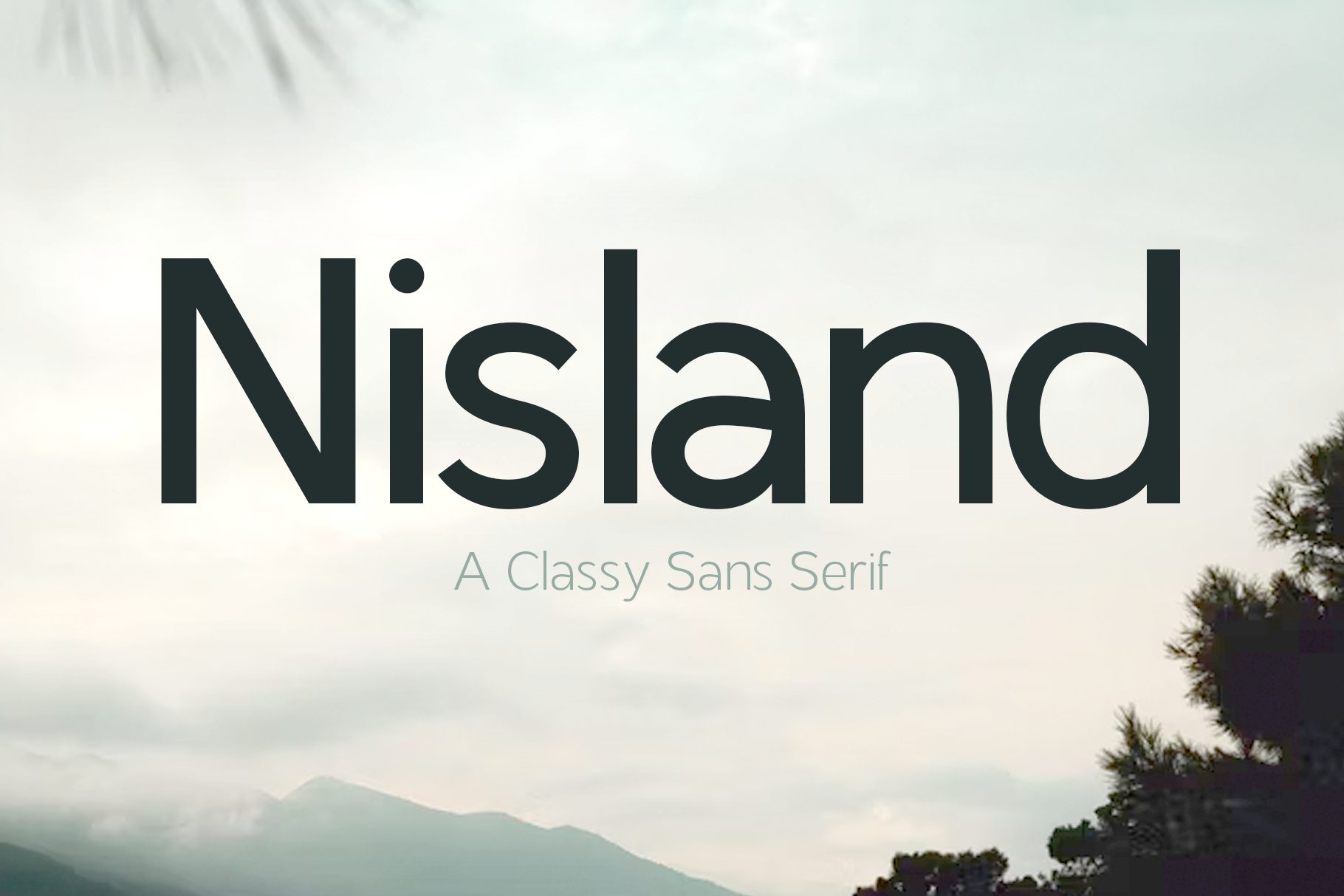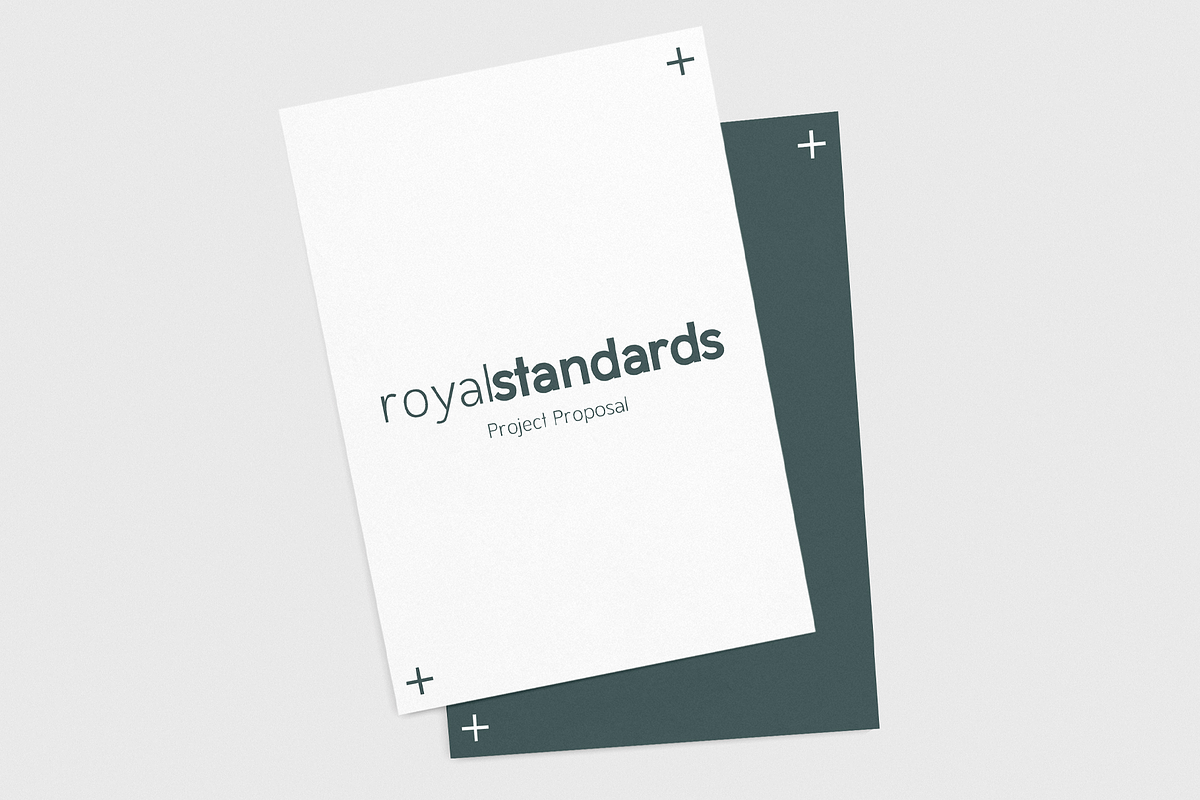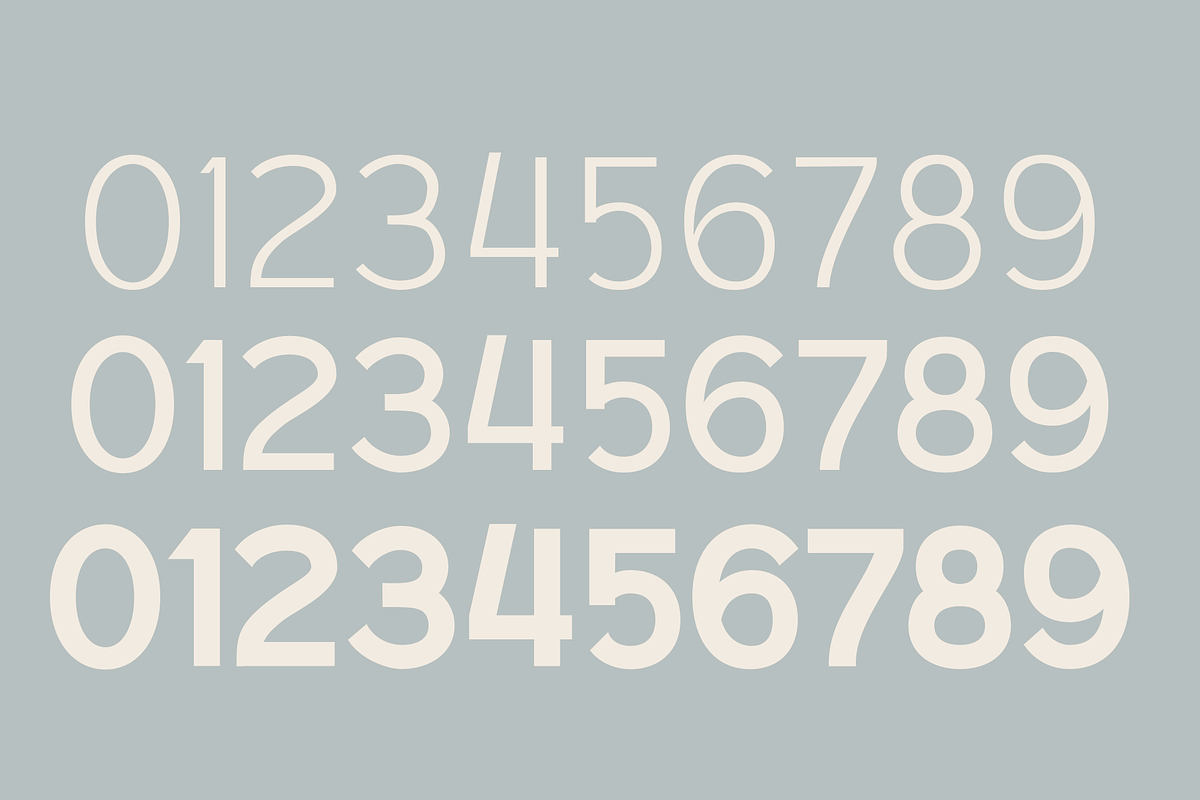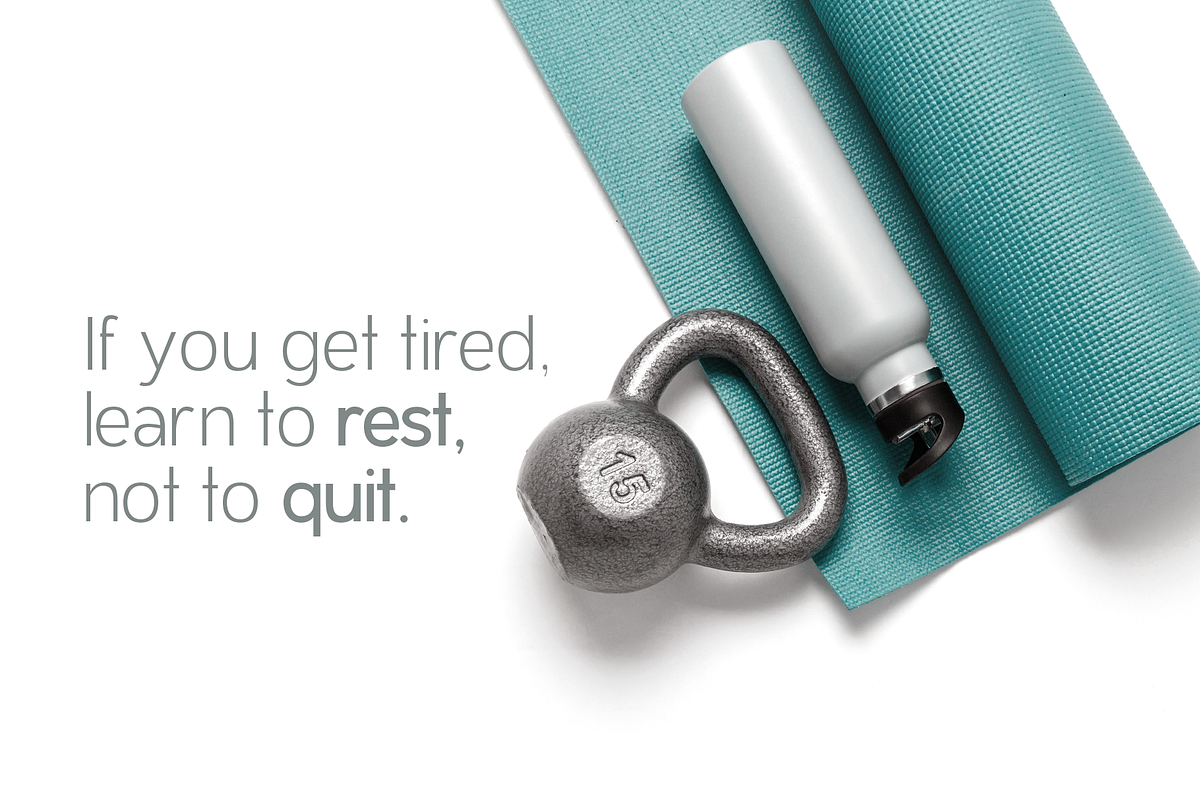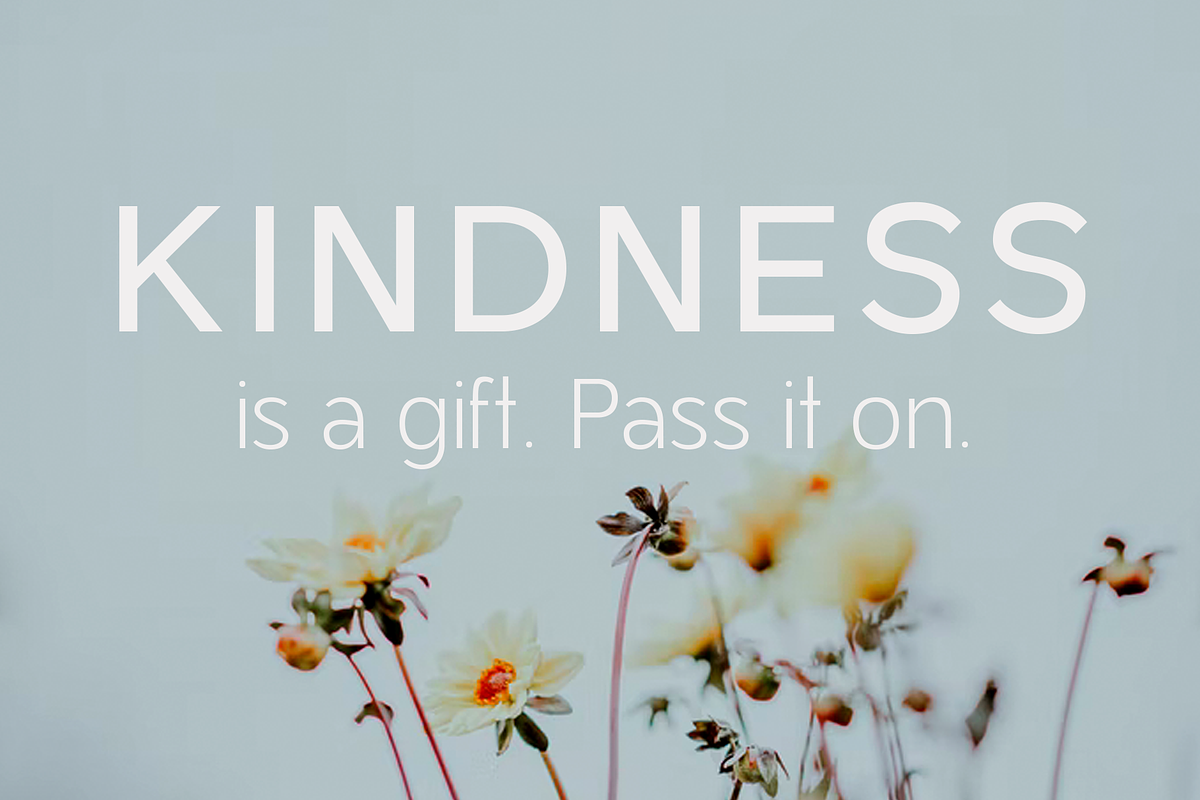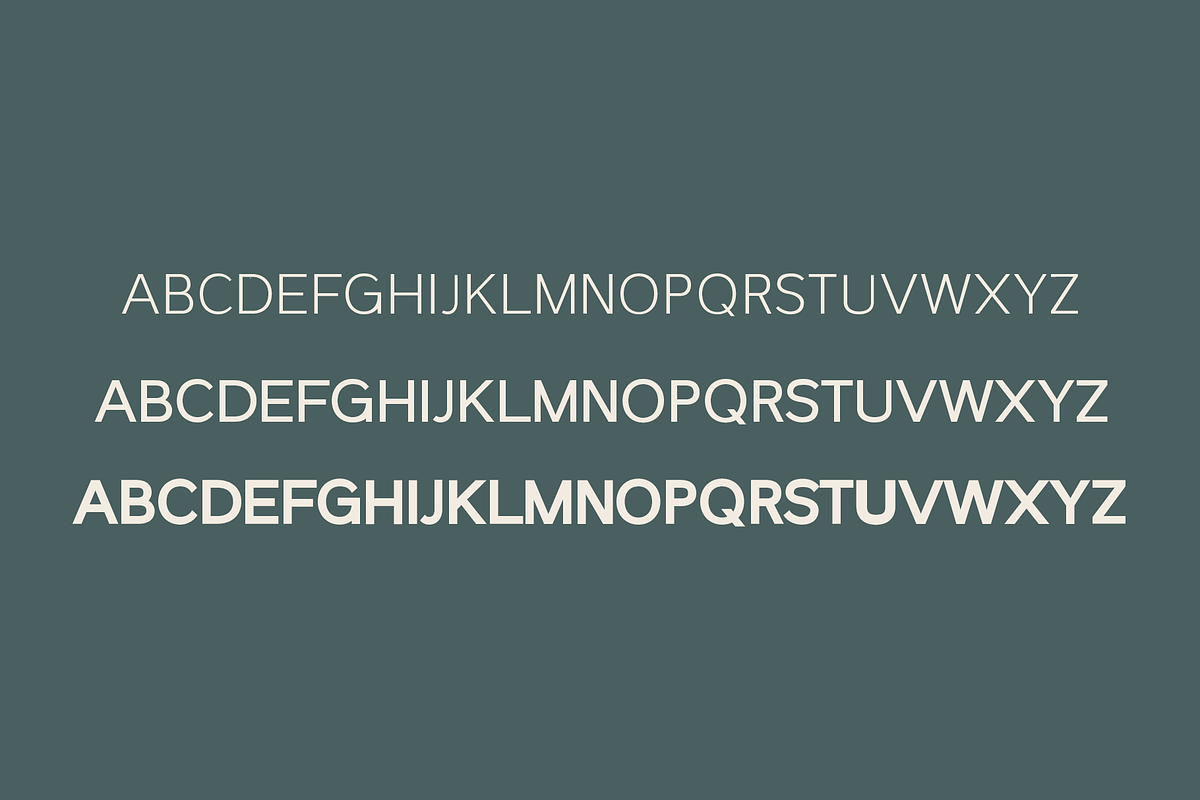
Nisland | A Classy Sans Serif Font
Nisland is a clean and classy sans serif font that can add value to every design. I created this font when I needed a new dependable typeface that was easy to read and perfect for every project. This typeface creates beautiful headers, titles, and covers.
• Three different weights! This font has light, regular, and bold variations.
• Western European characters
• Brand Creative Assets - Create classy logos, attention-catching graphics, and an easy-to-read website!
• Stationery - Design clean paper products that are easy to read!